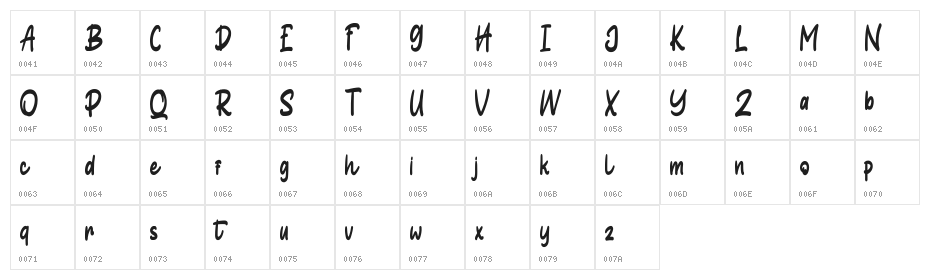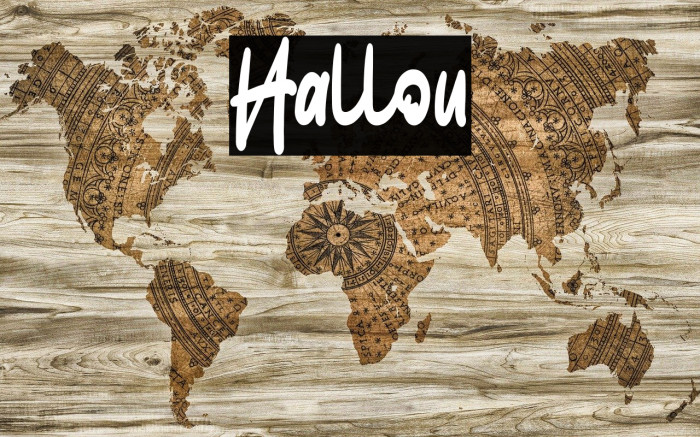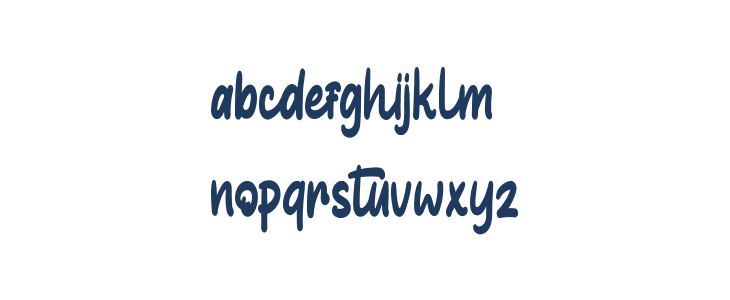
Hallou Font
Hallou Description
This font features a bold and playful handwritten style, characterized by its smooth curves and slightly uneven strokes that give it a casual and friendly appearance. The letters are well-rounded with a consistent thickness, creating a harmonious flow across the text. The uppercase and lowercase letters maintain a cohesive look, while the numbers and special characters blend seamlessly with the overall design. This font's energetic and informal vibe makes it suitable for creative and engaging projects.
| Overall Style | Playful, Casual |
| Proposed Projects | Ideal for greeting cards, children's books, playful branding, and social media graphics. |